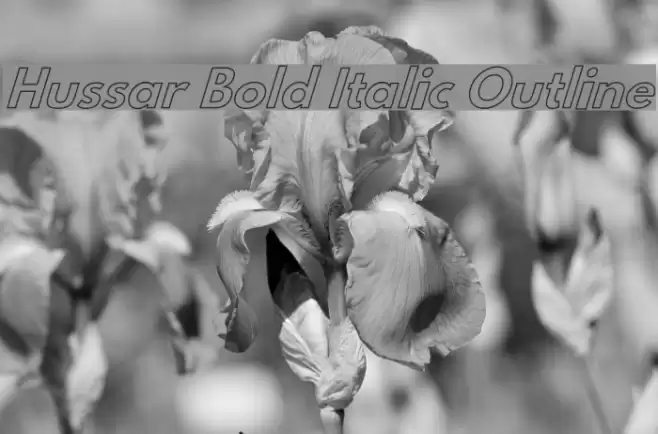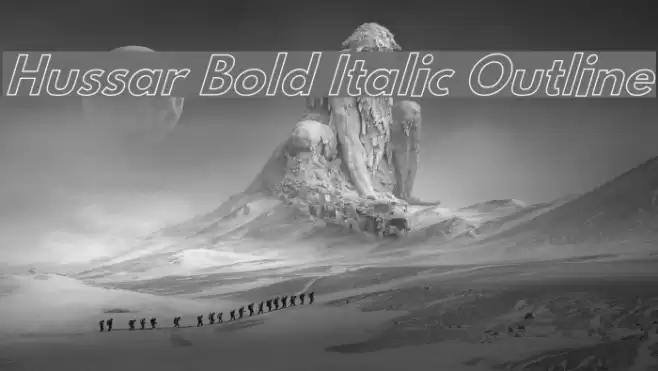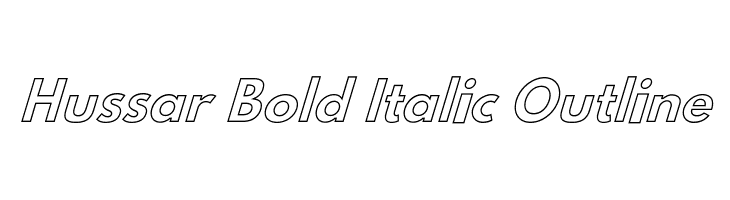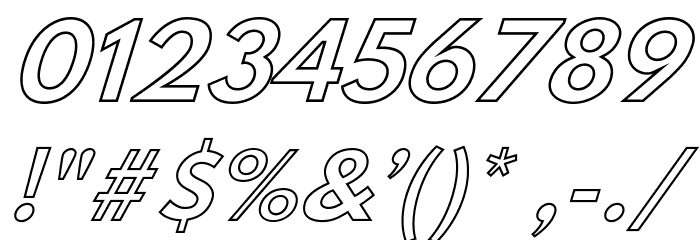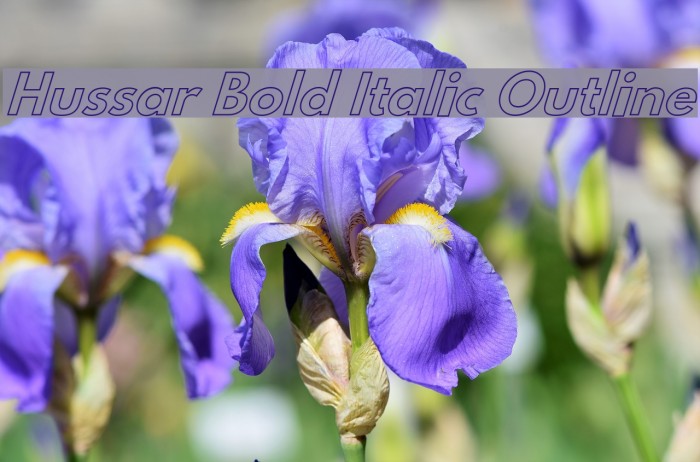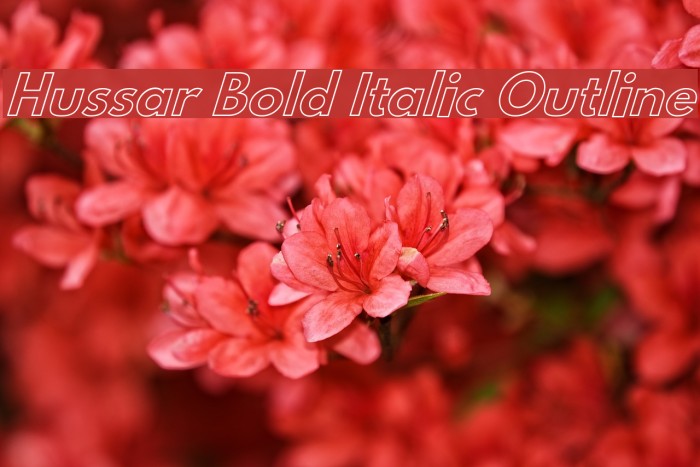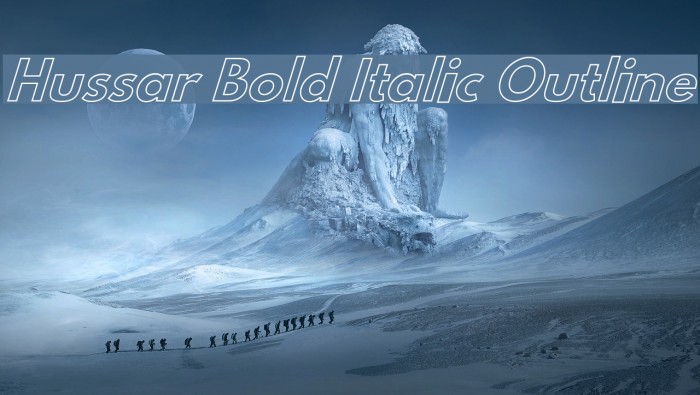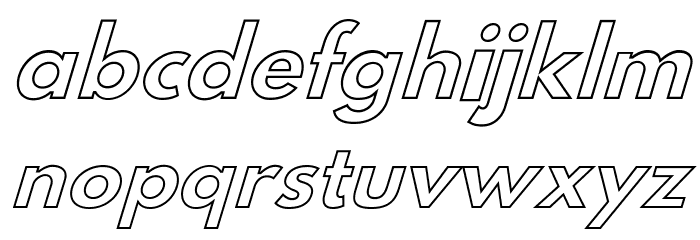
Hussar Bold Italic Outline
This font features a bold and italicized style with an outline effect, giving it a distinctive and modern appearance. The uppercase and lowercase letters are slanted, adding a dynamic and forward-moving feel. The numerals and special characters maintain the same bold and outlined characteristics, ensuring consistency across all glyphs. The font's design is clean and legible, making it suitable for various creative applications. Its outlined nature provides a unique aesthetic that can be used to create eye-catching designs.
A bold, italic, outlined font with a modern and dynamic style.
- Proposed Projects: Ideal for branding, posters, headlines, and any design requiring a bold statement.
- Use Case: Headlines, Logos, Posters